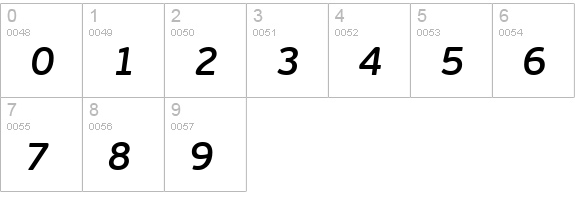
PFBeauSansPro-SemiBoldItalic Font Details
PFBeauSansPro-SemiBoldItalic is a sleek and modern typeface that exudes sophistication and style. With its semi-bold weight and italic styling, this font is perfect for creating eye-catching and impactful designs. The strong yet elegant curves of each letter make it ideal for headlines, titles, and branding projects. What's even better is that PFBeauSansPro-SemiBoldItalic is available for free download at FontsMarket.com. So whether you're a designer looking to add a touch of class to your work or a business owner wanting to make a statement with your marketing materials, this font is a fantastic choice. Don't miss out on the opportunity to elevate your designs with this stunning typeface. Download PFBeauSansPro-SemiBoldItalic today and see the difference it can make in your projects.